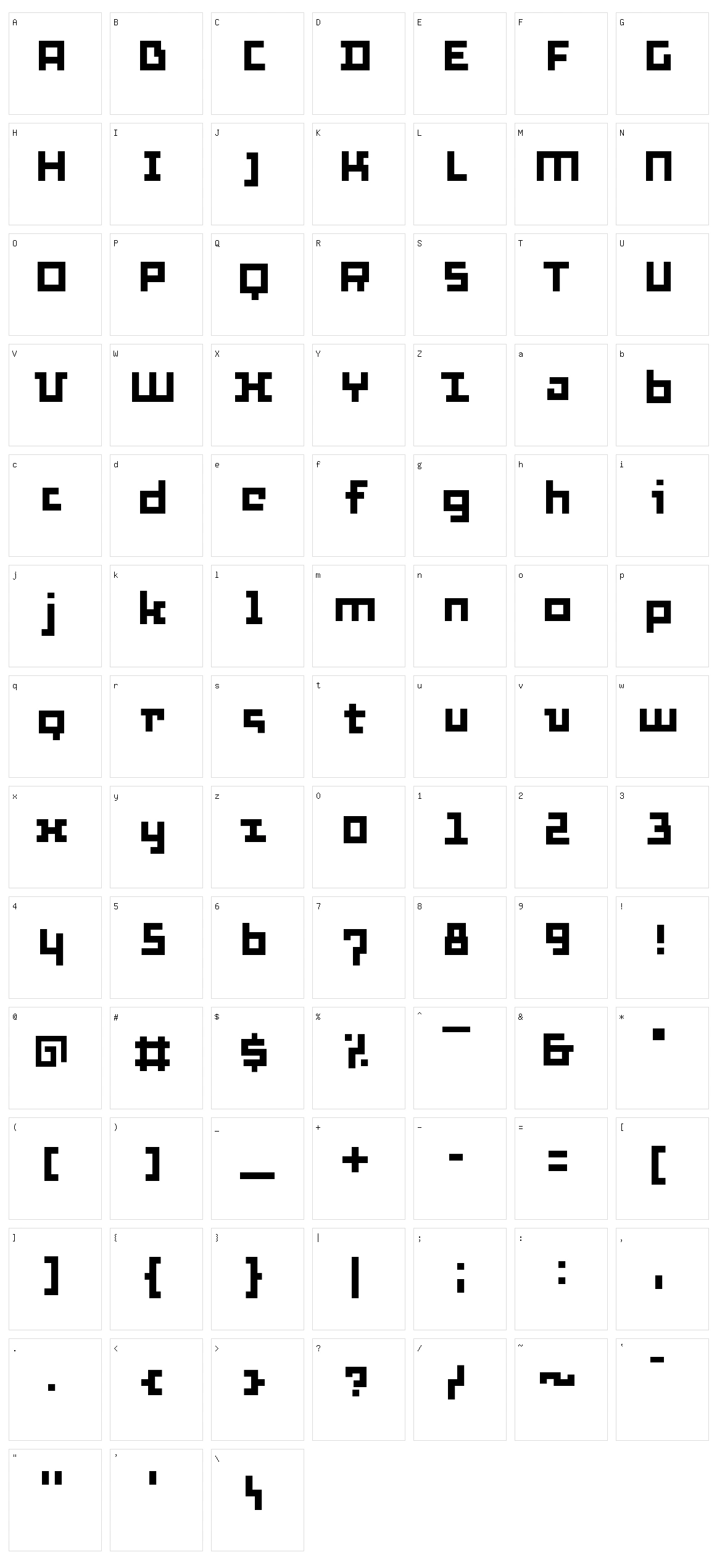
The free font Thirtysix is carefully designed by Peter Van Lancker, showcasing a thoughtful balance of creativity and usability and falls under the Square font style. When you download the ZIP file, it contains only 11.05 KB of font files, making it lightweight and quick to download. Please review the license details below to understand permitted usage and distribution rights. If license information is not available, we recommend using this font for personal projects only or contacting the author directly for commercial usage permissions.